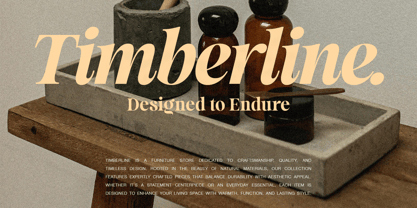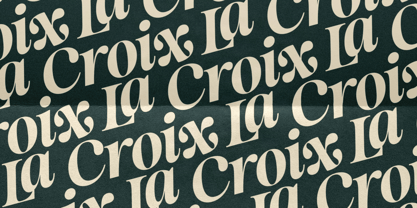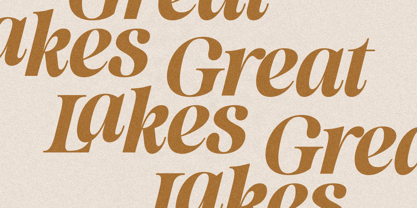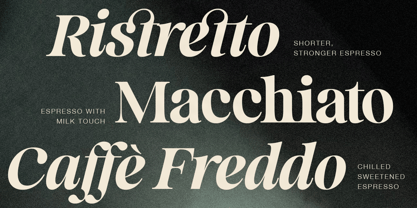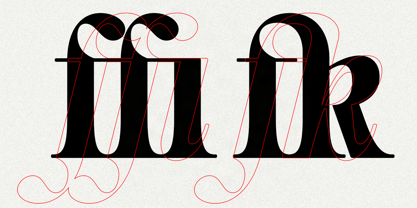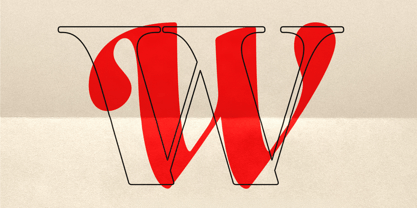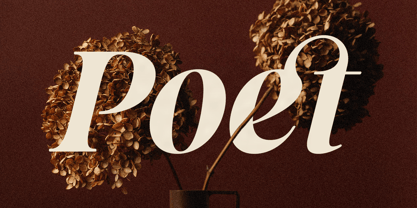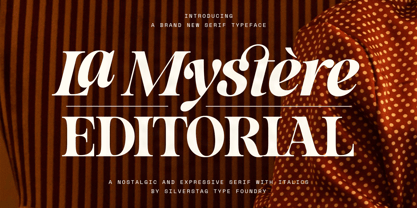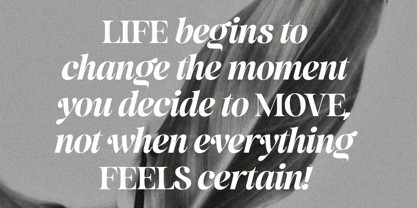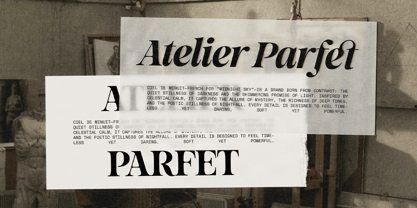
SLTF La Mystere
Meet SLTF La Mystère – a bold and graceful serif typeface designed with expressive curves, soft edges, and beautifully sculpted serifs. Crafted for designers who want to create refined, editorial-driven work, La Mystère blends classical inspiration with modern flair.
This font is perfect for magazine layouts, luxury branding, book covers, packaging, and high-end social media graphics. Its elegant contrast and subtle flair give your text a voice that feels confident, timeless, and stylish.
La Mystère comes in two variants – Regular and Italic – both rich in personality and designed to bring charm and sophistication to your typography.
Key Features:
• Two styles included – Regular and Italic
• High contrast serif with soft curves and rounded details
• Perfect for editorial, fashion, packaging, and branding
• Full multilingual support – over 100 languages
• Punctuation, numerals, and standard OpenType features
• Designed with elegance and usability in mind